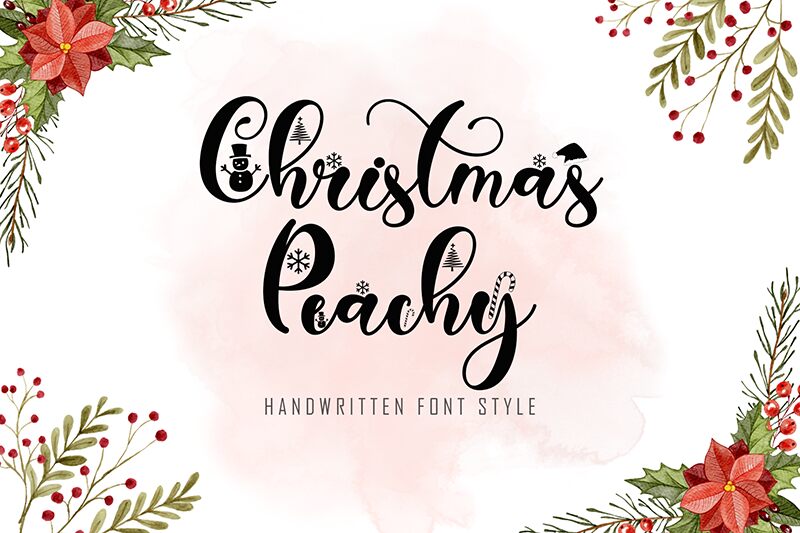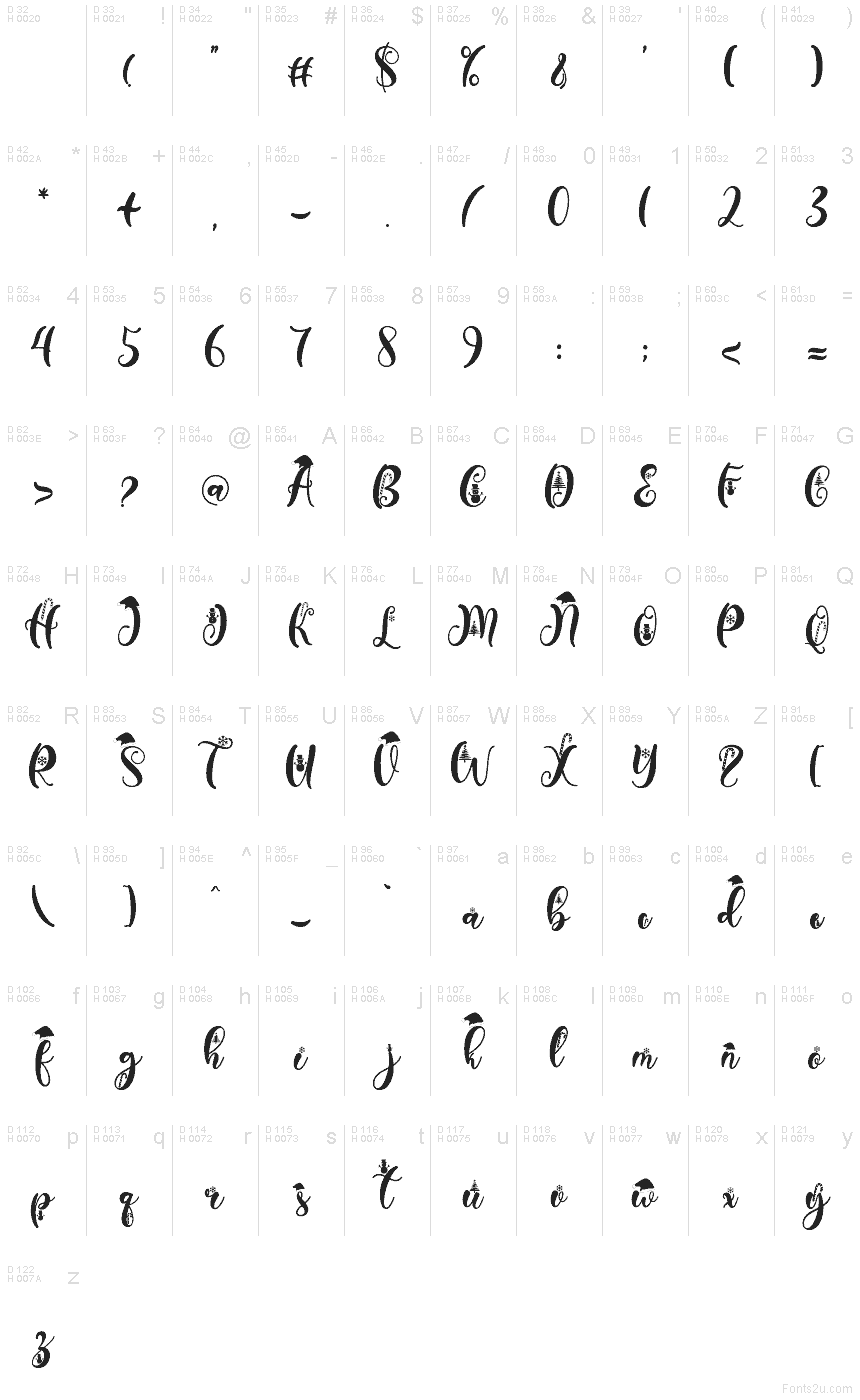
Christmas Peachy
Christmas Peachy font by Yoga Letter is a free decorative Christmas script typeface that feels like it’s been written with a thick, inky brush and sprinkled with snow. Tall, looping letters curve and sway, while tiny icons—snowflakes, trees, stockings, and little snowmen—nestle inside the strokes, adding instant festive charm without extra graphics. The texture leans slightly rough and hand-drawn, giving your layouts that cozy, homemade-card warmth.
Using Christmas Peachy, you can quickly dress up holiday greeting cards, party invitations, gift tags, seasonal logos, social media posts, and printables like posters or mug designs. This free font works beautifully at larger sizes where the decorative details can shine. Pair it with a simple sans serif for body text, and let Christmas Peachy handle the cheerful headlines and names.